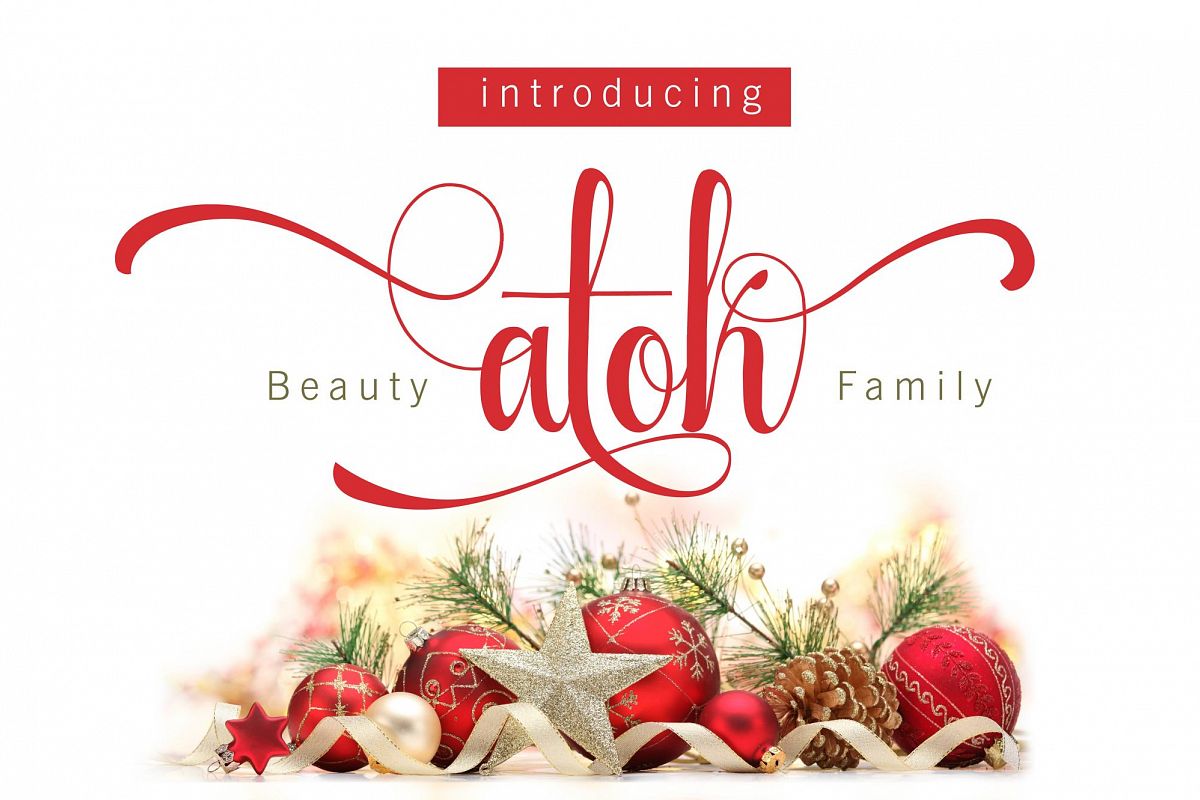
BEAUTY ATOK SCRIPT
Beauty Atok script is another lovely modern calligraphy typefaces, classic and elegant touch. Can be used for various purposes.such as headings, signature, logos, wedding invitation, t-shirt, letterhead, signage, lable, news, posters, badges etc.
Numerals
Stylistic set
Ligature